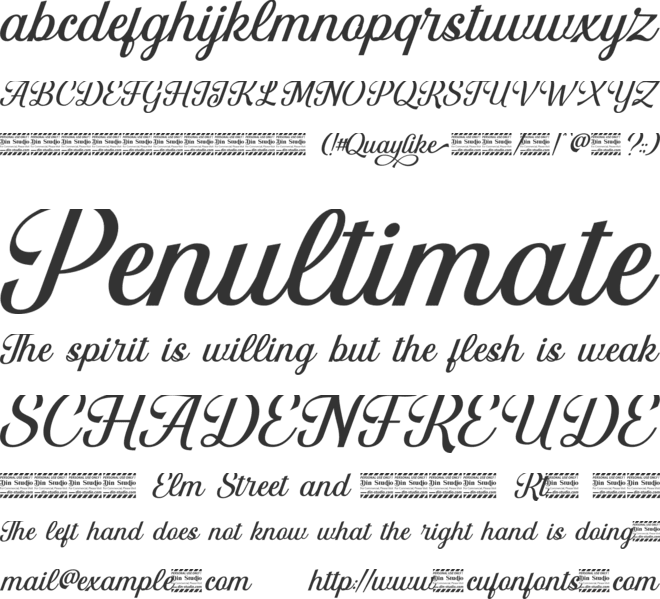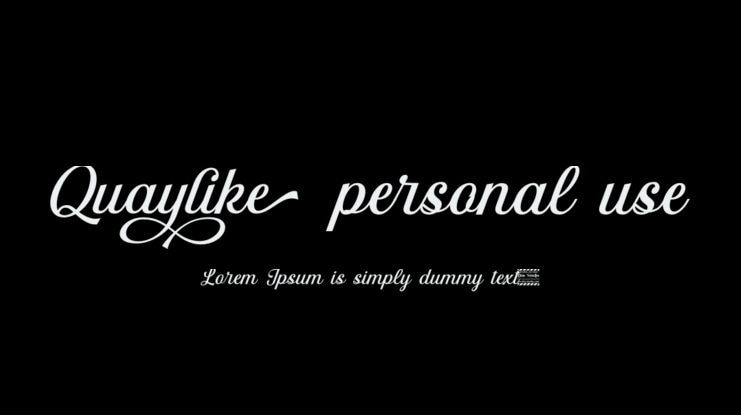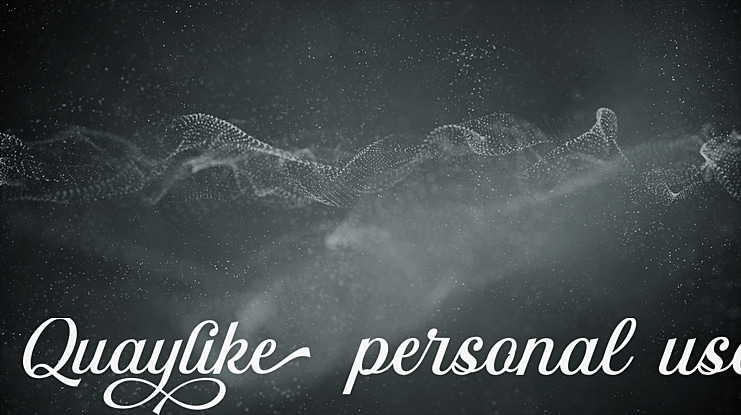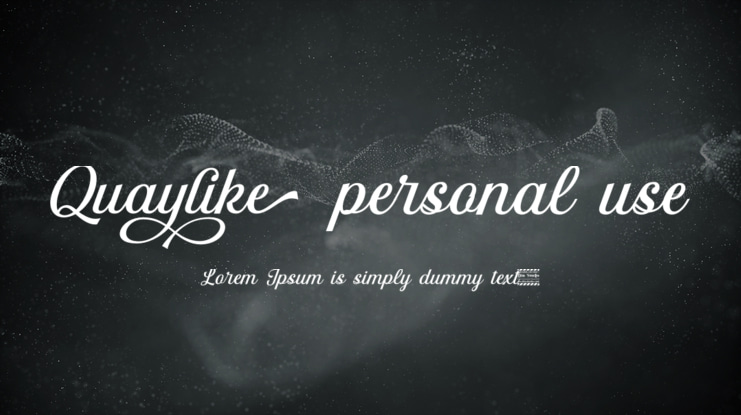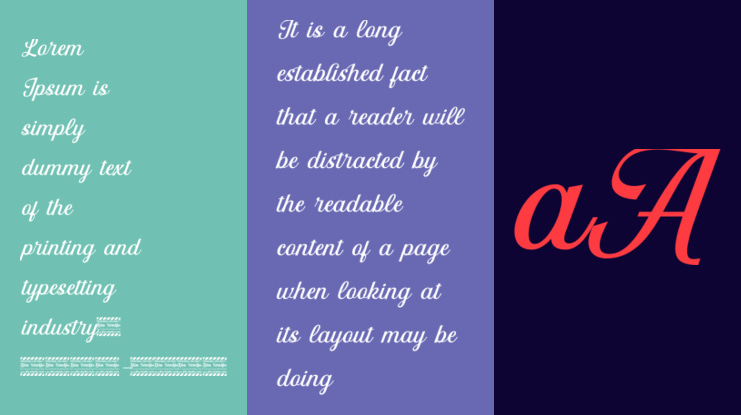
This font is more than just another handwritten font. Quaylike is a handwritten font with big, quirky letters. It encapsulates the essence of luxury and elegance. Designed primarily as a captivating handcrafted with retro style. This typeface that is easy on the eyes font that excels at captivating headlines, or large branding text, the font oozes that cute aesthetic that just makes you go “aww!”